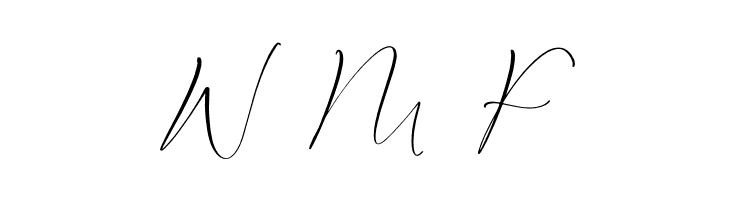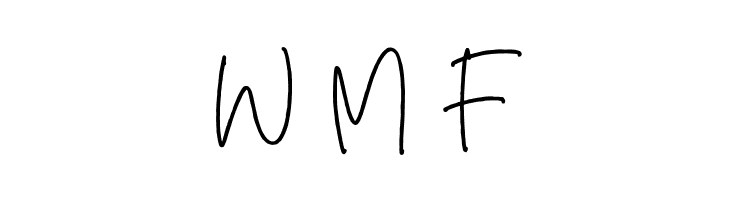
A graceful and elegant script font with flowing, interconnected strokes and charming embellishments.
A dynamic and elegant script font with fluid, connected strokes.
Tall, whimsical sans-serif with playful rounded forms.
Casual, playful handwritten font with whimsical details.